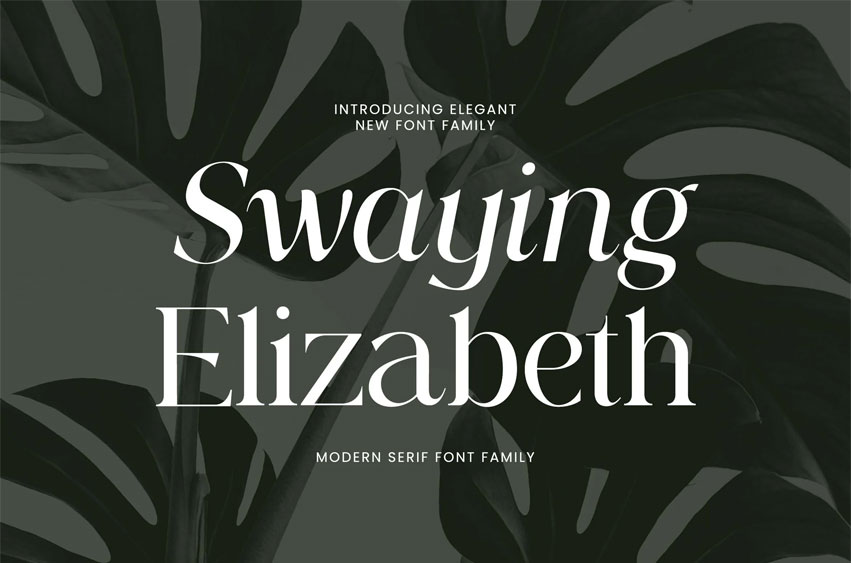
Swaying Elizabeth Font
Swaying Elizabeth Font Family that feels beautiful, classy, elegant, and modern. This font is perfectly suited for a wide variety of projects, such as signatures, stationery, logos, weddings, typography quotes, magazine or book covers, website headers, branding, packaging design, and more. Also, fashion-related branding or editorial design displays both masculine and feminine qualities.
• Regular
• Italic
• Medium
• Medium Italic
• Semi Bold
• Semi Bold Italic
• Bold
• Bold Italic
• Extra Bold
• Extra Bold Italic